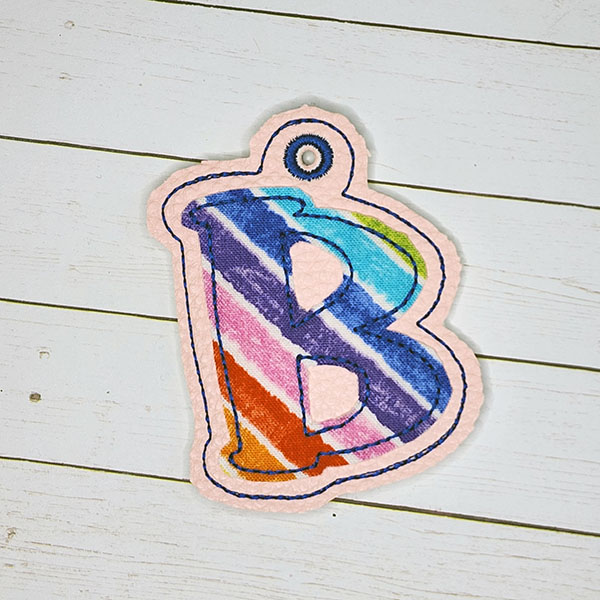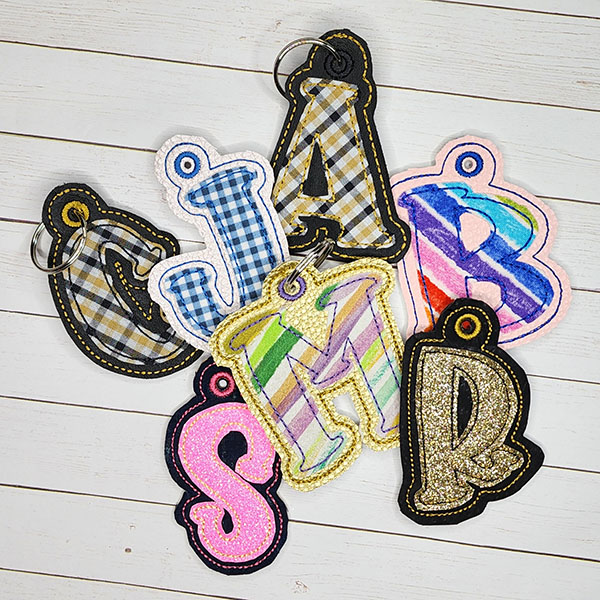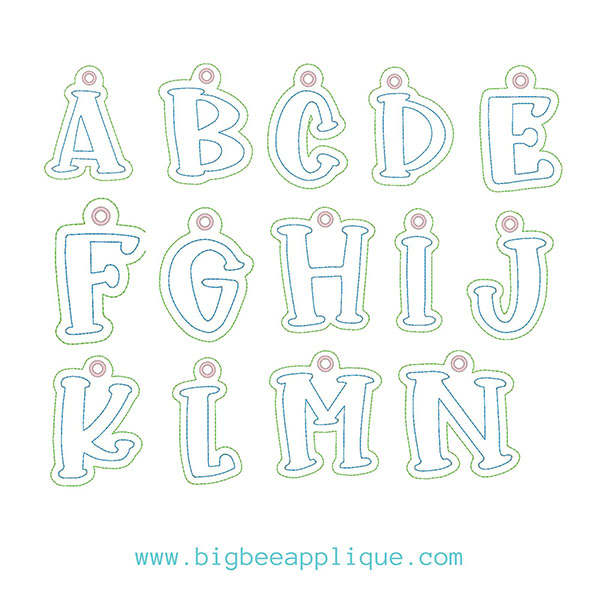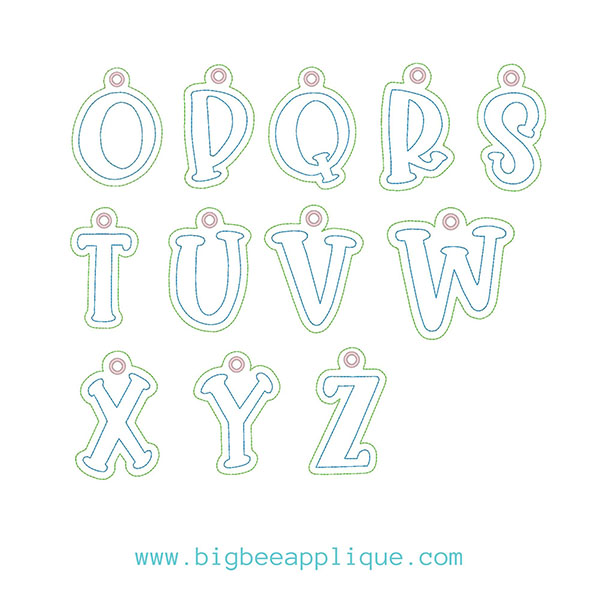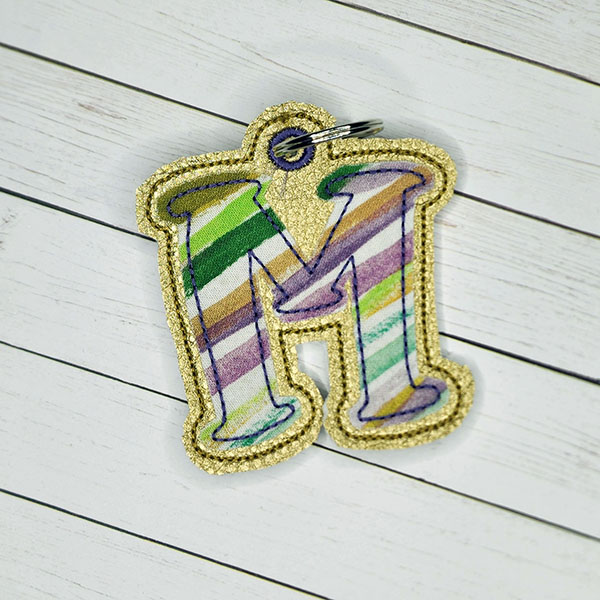
ITH Happy Font Key Fob Applique Design
ITH font key fob set
In the Hoop Embroidery Applique Font Set. Stitch this easy ITH applique font key fob. Fits a 4x4 Hoop and measuring approximately 3 inches. This font set is made in the hoop of your embroidery machine and is not a physical finished product. These key fobs can be used to adorn a purse, booksack or can be used as a key ring.